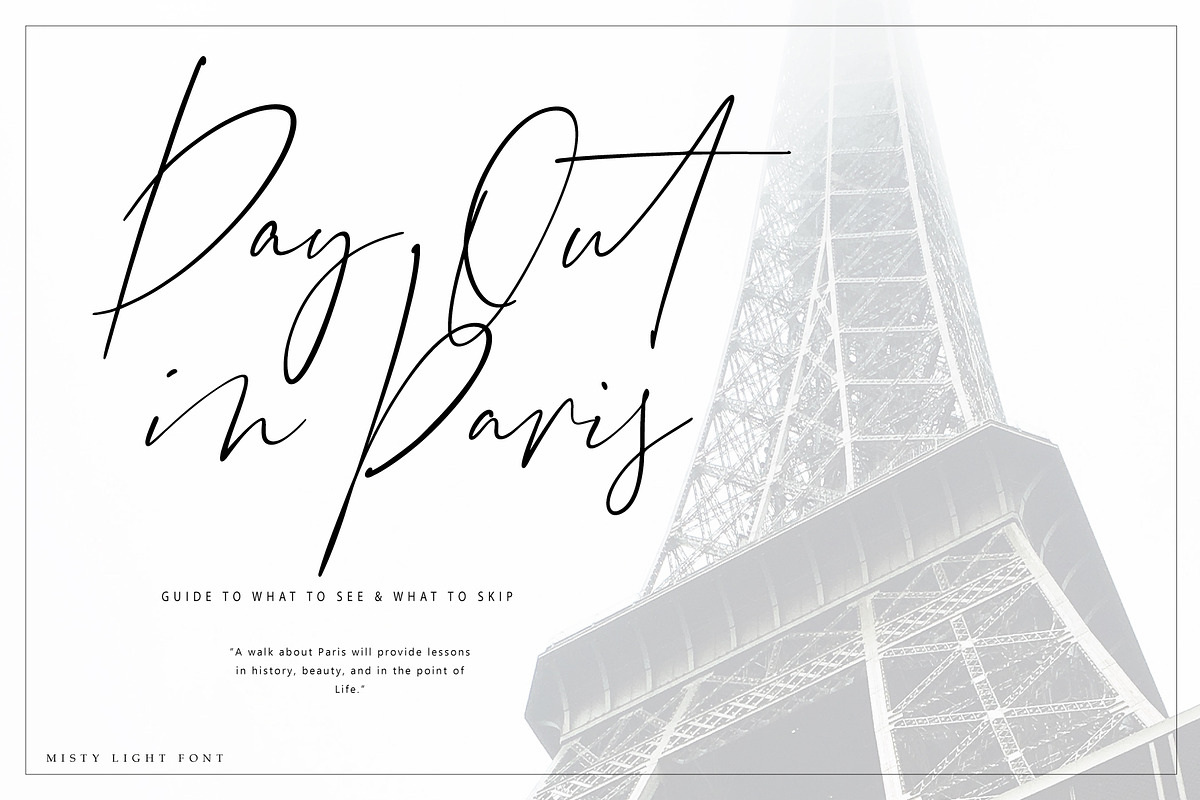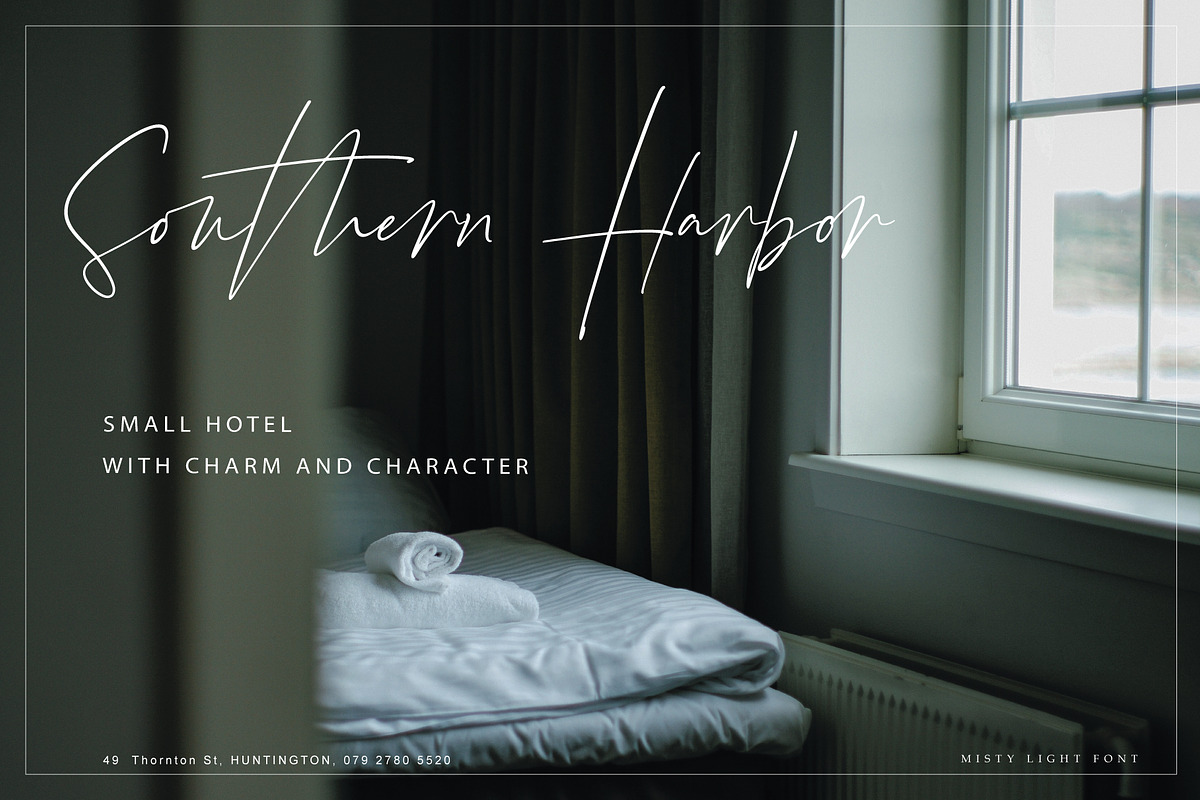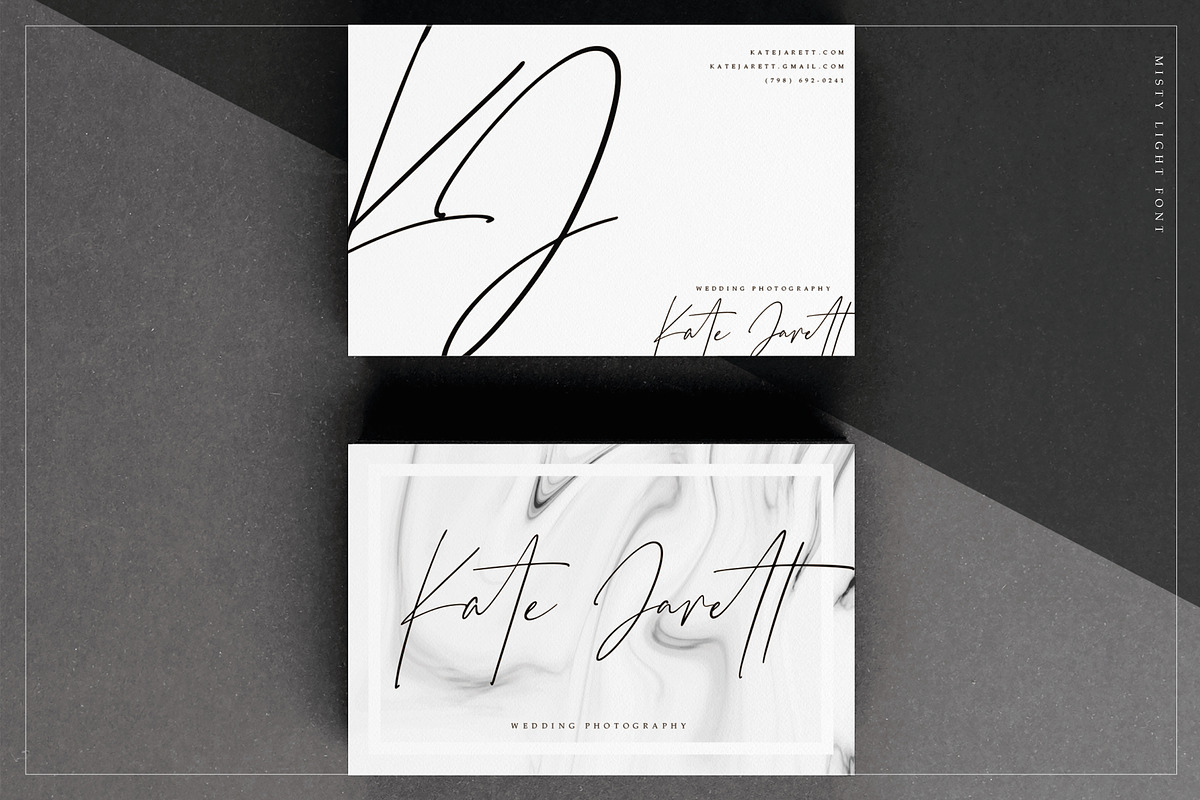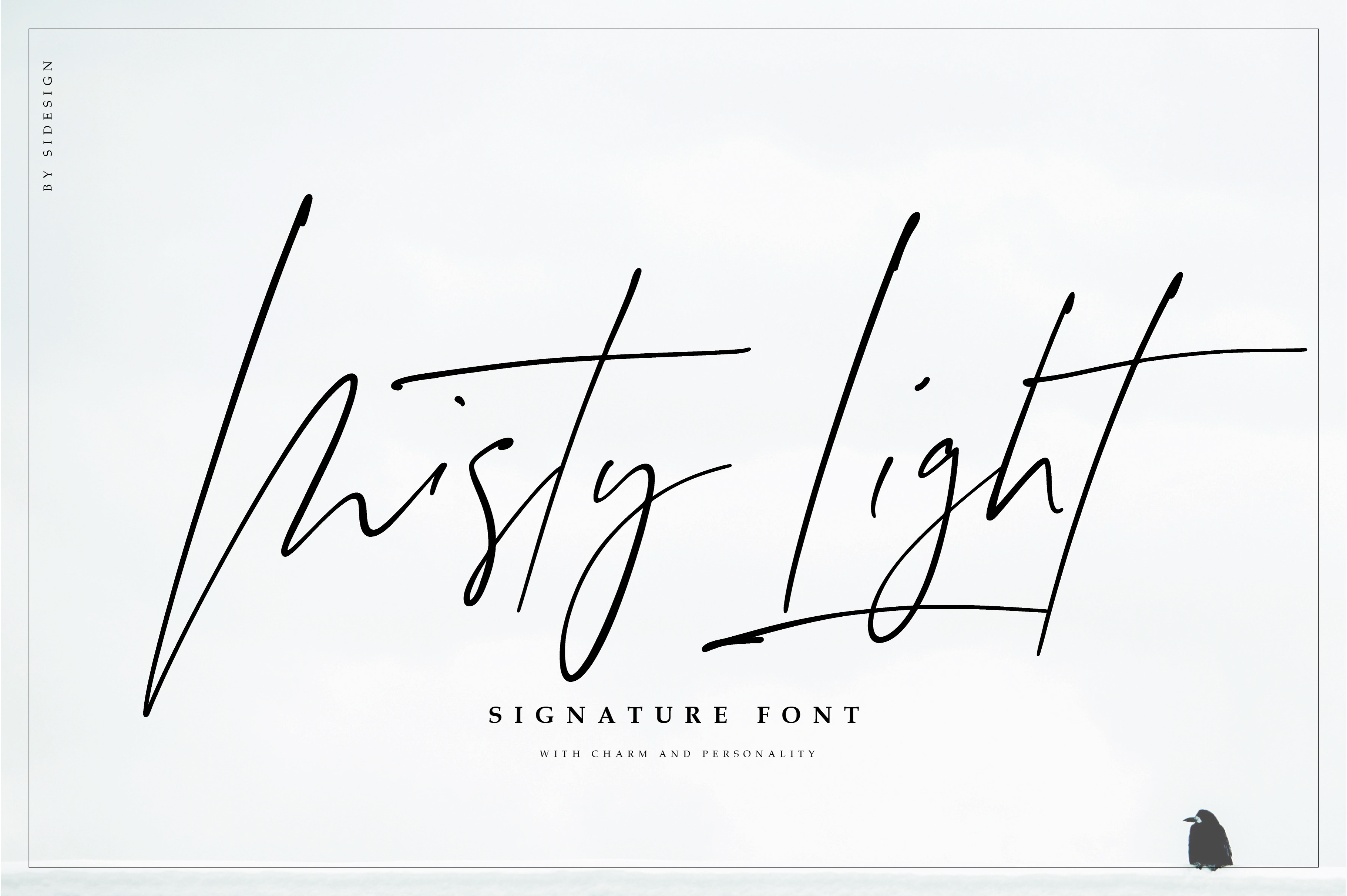
Misty Light font
Introducing Misty Light a signature font with charm and personality.
Misty Light is best used in branding, social media and product design, wedding invitation, title of articles or books etc. - wherever you need a sophisticated and elegant design. With this font you can add a stylish handwritten feeling to you work.
Misty Light font contains:
- a full set of upper & lowercase characters;
- a full set of alternate lowercase characters;
- numerals and punctuation;
- 50 unique ligatures.